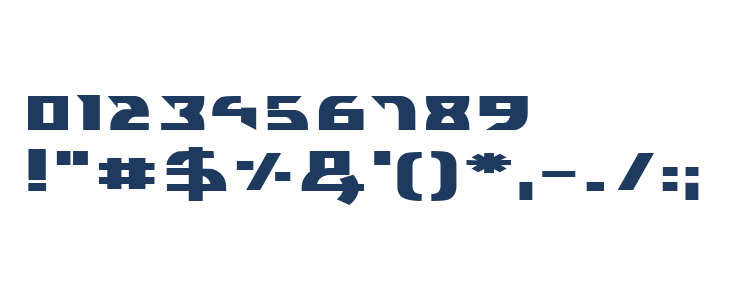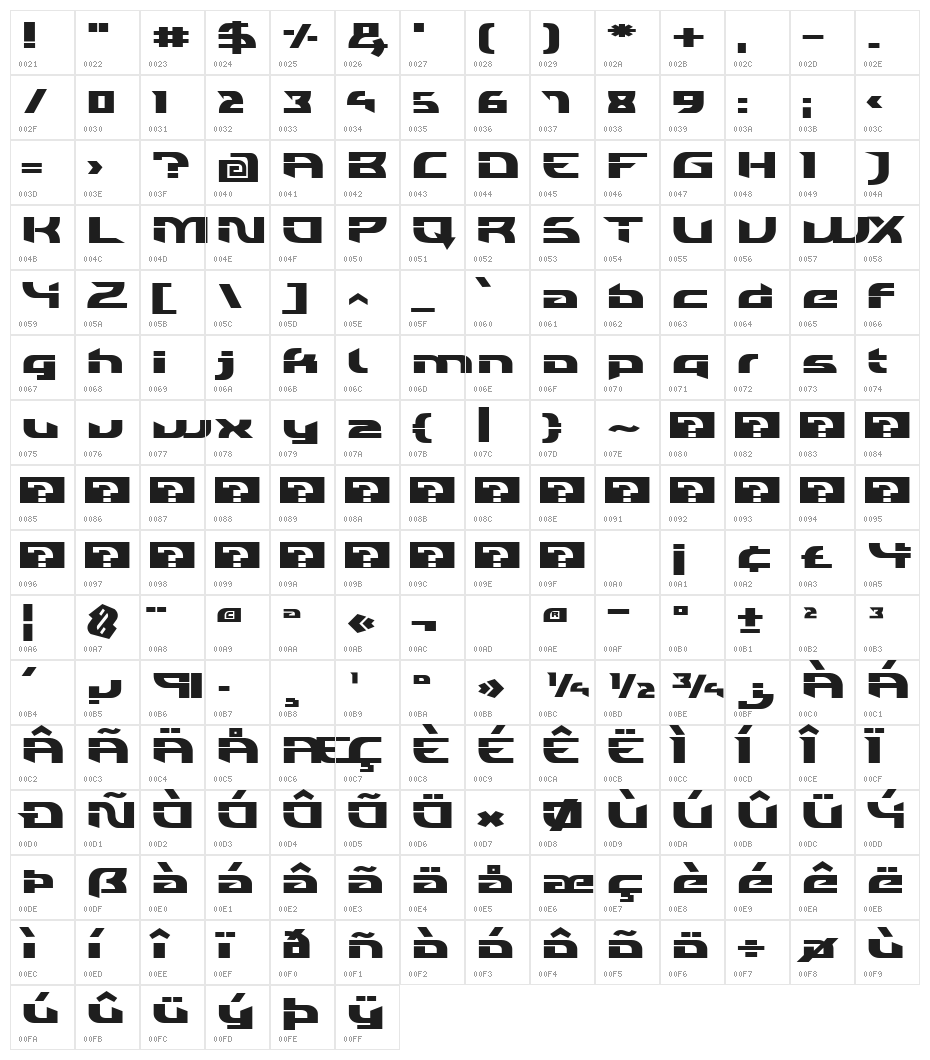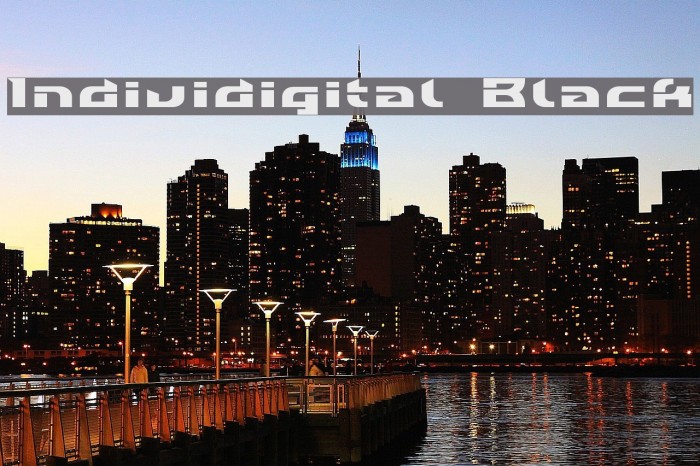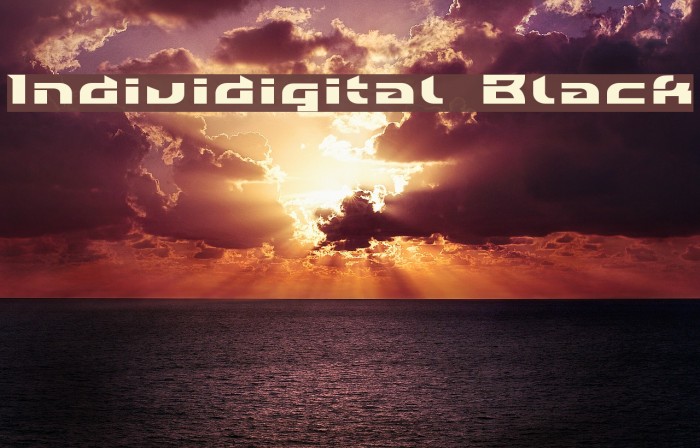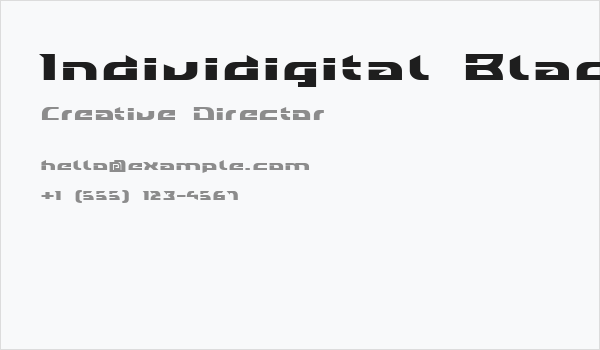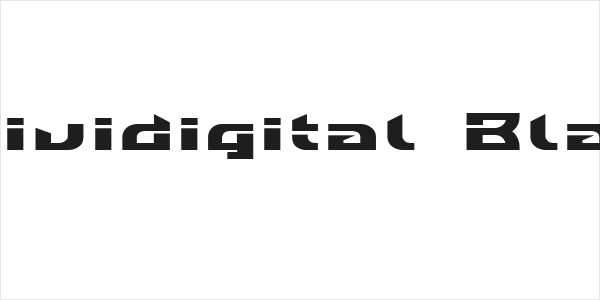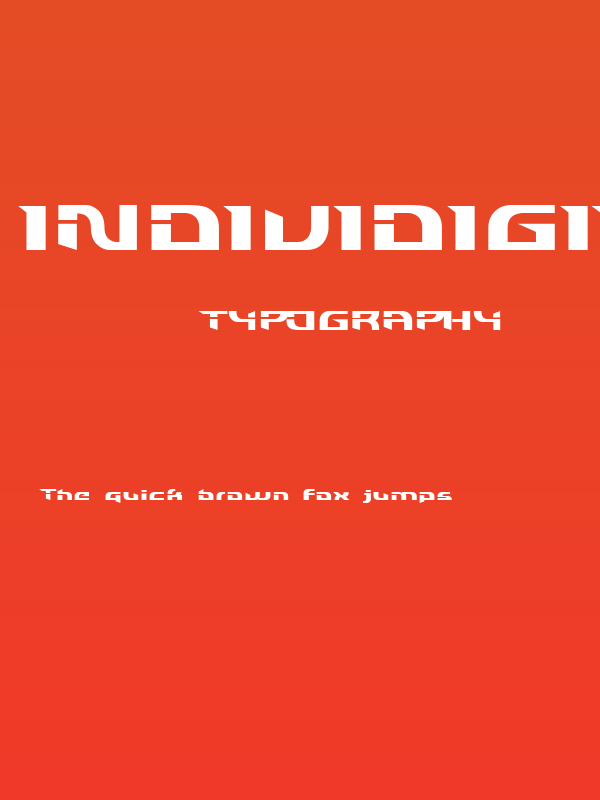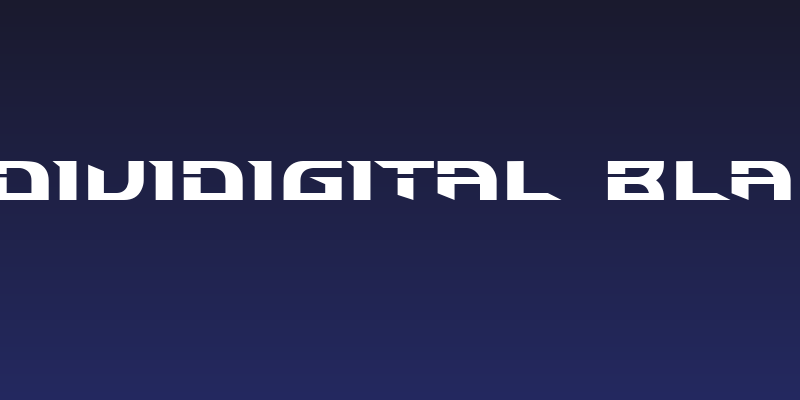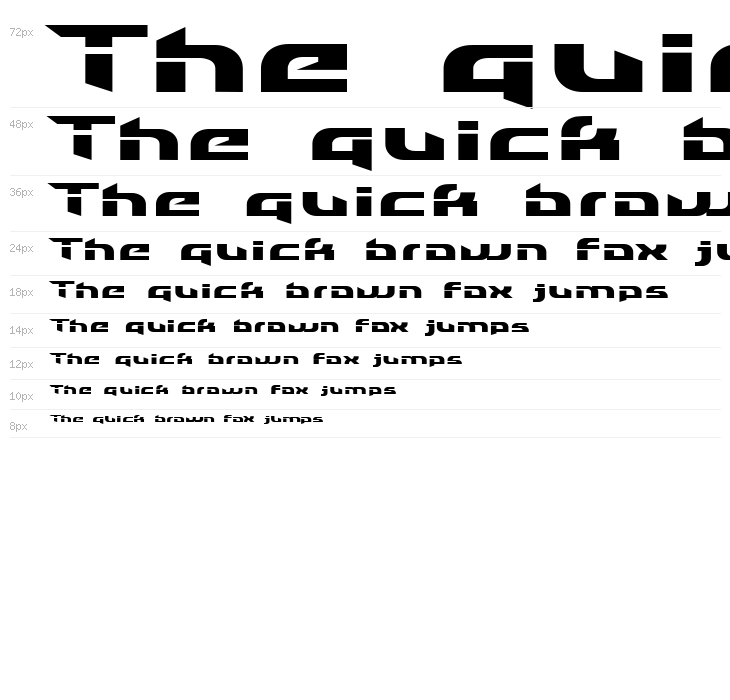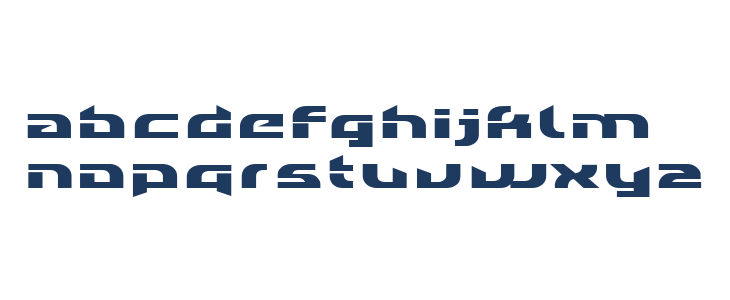
Individigital Black Font
Individigital Black Description
This font features a bold and futuristic design with sharp, angular edges and a geometric structure. The characters are distinctly modern, with a digital aesthetic that suggests a technological or sci-fi theme. Each letter and number is crafted with precision, creating a cohesive and striking appearance. The uppercase and lowercase letters maintain a consistent style, while the numerals and special characters complement the overall design. This font is ideal for projects that require a strong, impactful visual presence.
| Proposed Projects | Ideal for technology branding, sci-fi movie posters, video game titles, and digital media. |